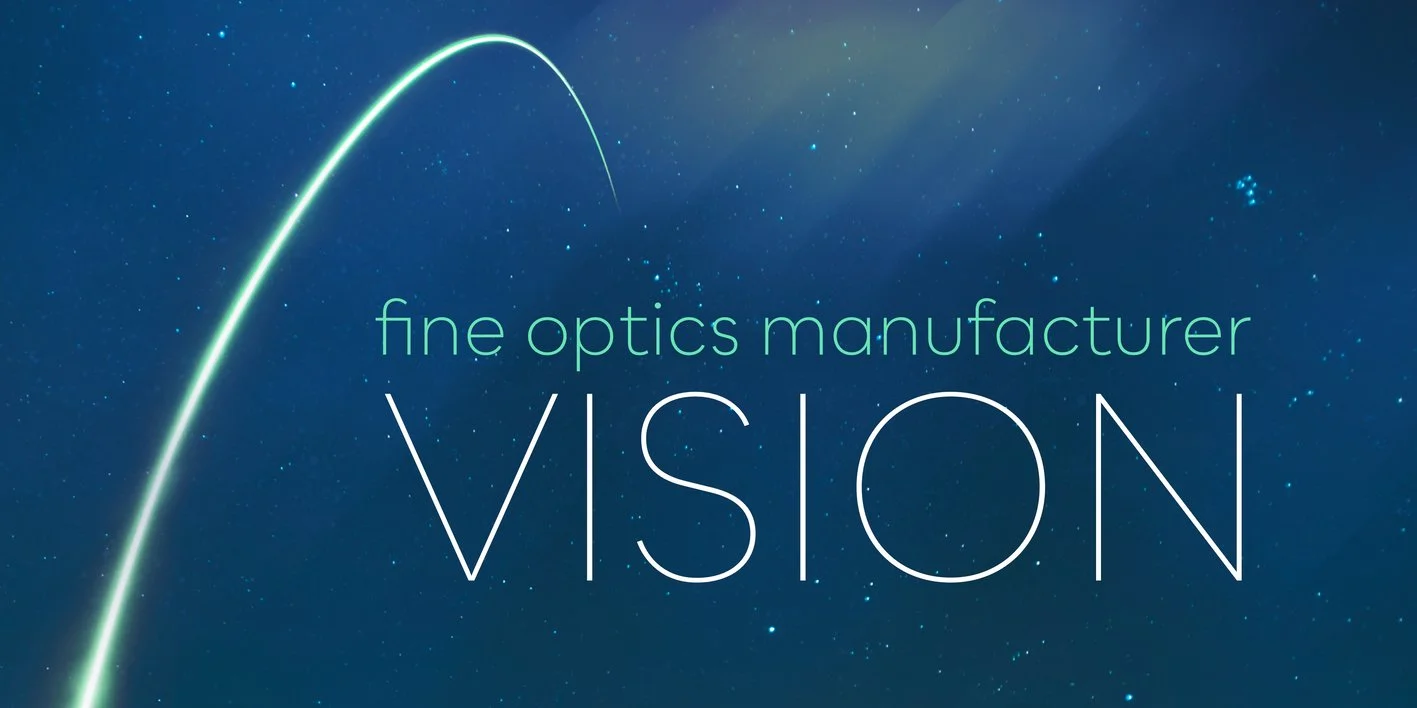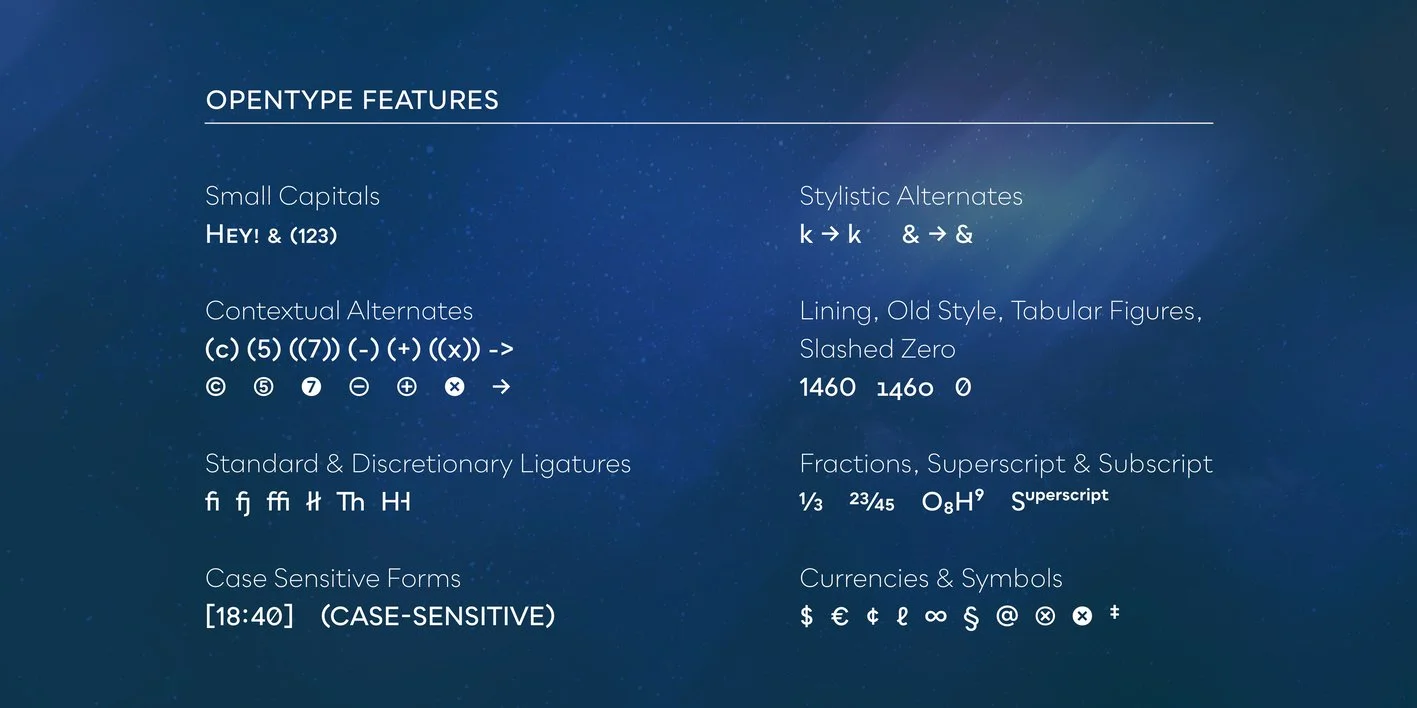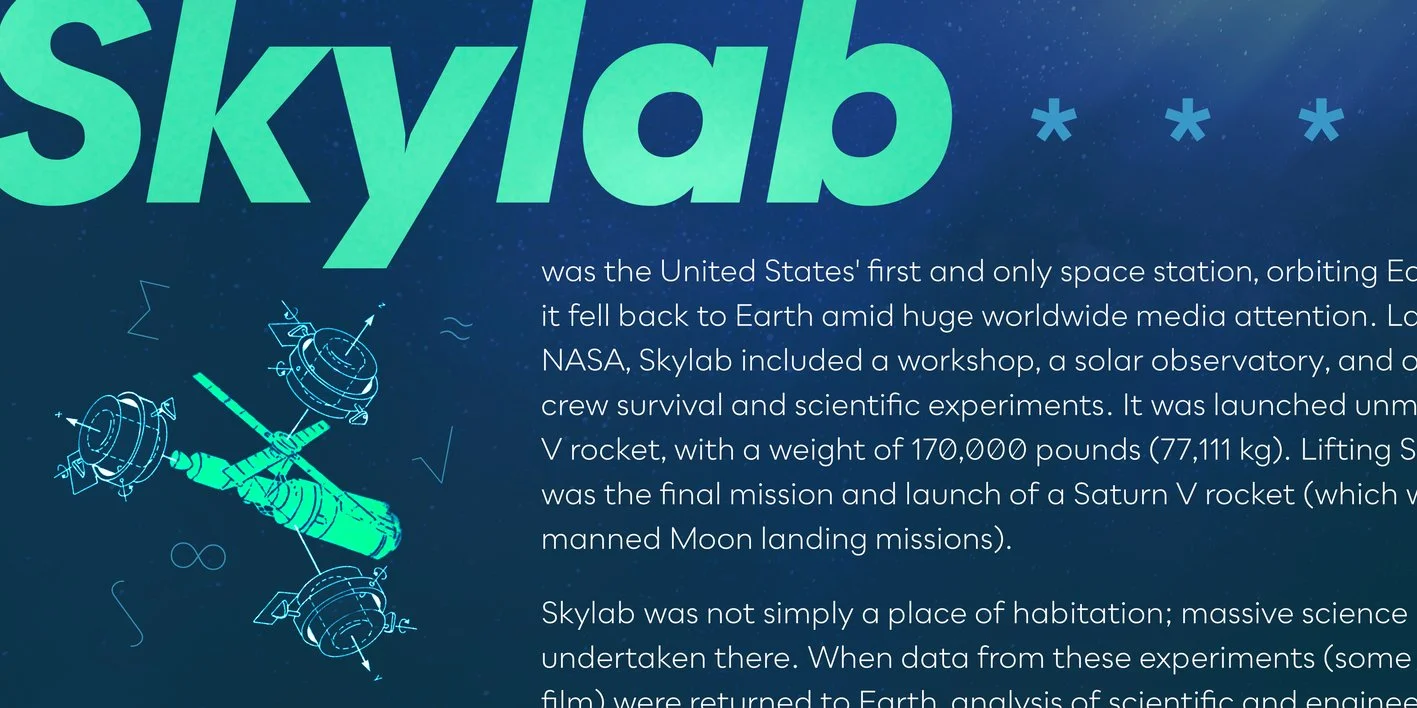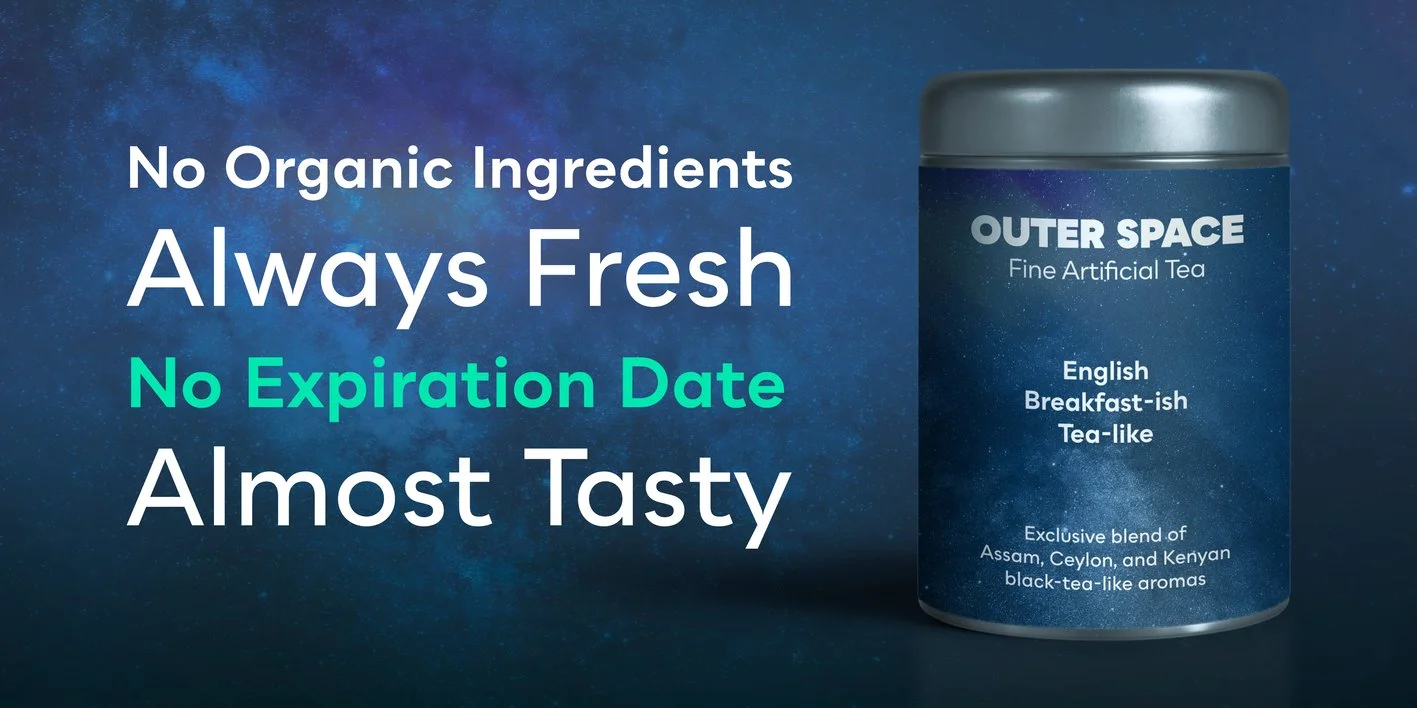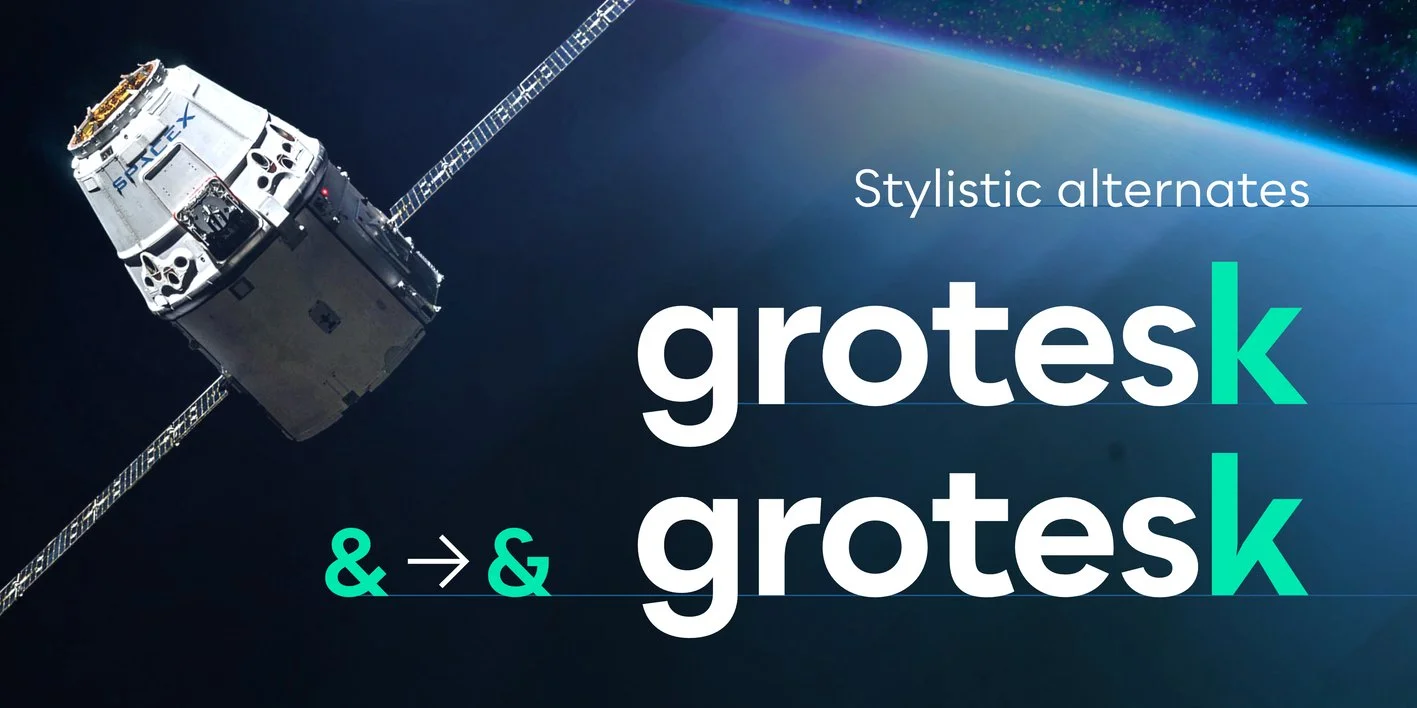
Bozon Font
There is a particular satisfaction in finding a typeface that delivers visual harmony and precise spacing without compromise. Bozon consistently provides it. The typeface brings a versatile sensibility to a broad range of creative disciplines, with versatility across print and screen contexts that holds up whether the work is print-first or screen-first.
In practice, Bozon proves particularly effective for packaging design, product labels, advertising campaigns, annual reports, logo design. Designers reaching for it find that the type decisions feel resolved rather than laboured — a useful quality when client timelines are tight.
The range of applications extends to environmental graphics, poster creation, editorial layouts, web design. That breadth is deliberate: the proportions and spacing were stress-tested across a wide range of mock briefs before the typeface was finalised.
Pairing Bozon with a contrasting serif or a neutral grotesque gives mixed-format layouts a clear visual grammar without requiring constant size adjustments to establish hierarchy.
Graphic designers working on identity systems find Bozon a reliable choice for projects that demand both personality and restraint. The design avoids the self-conscious quirkiness that dates quickly, settling instead for considered distinctiveness that holds up over time.